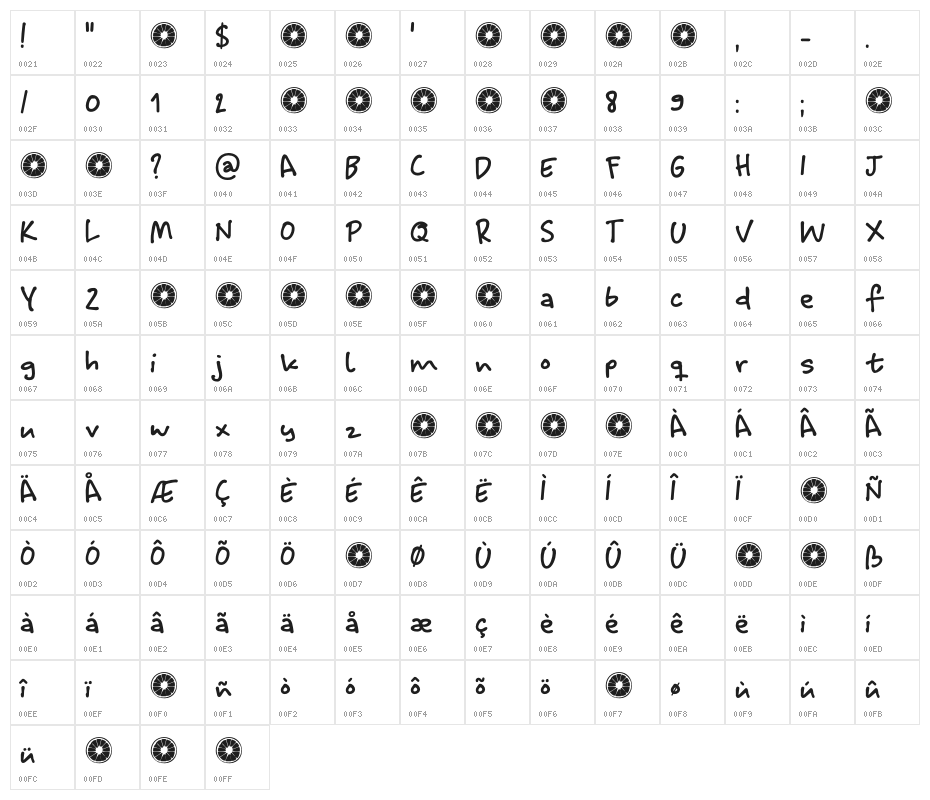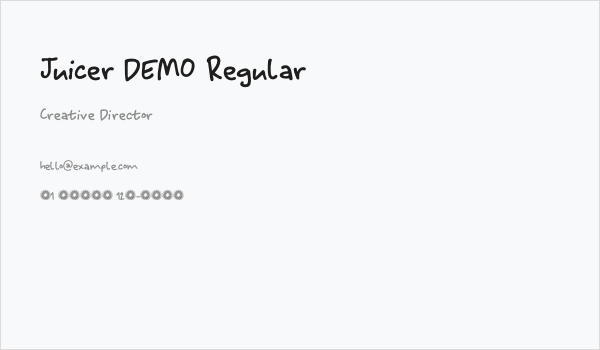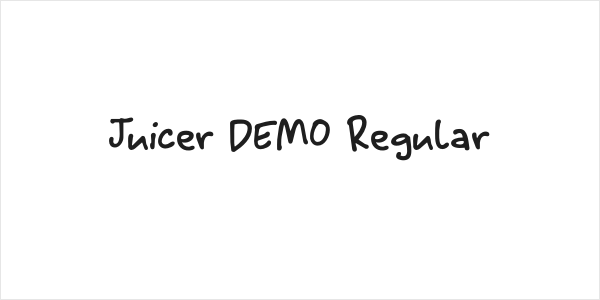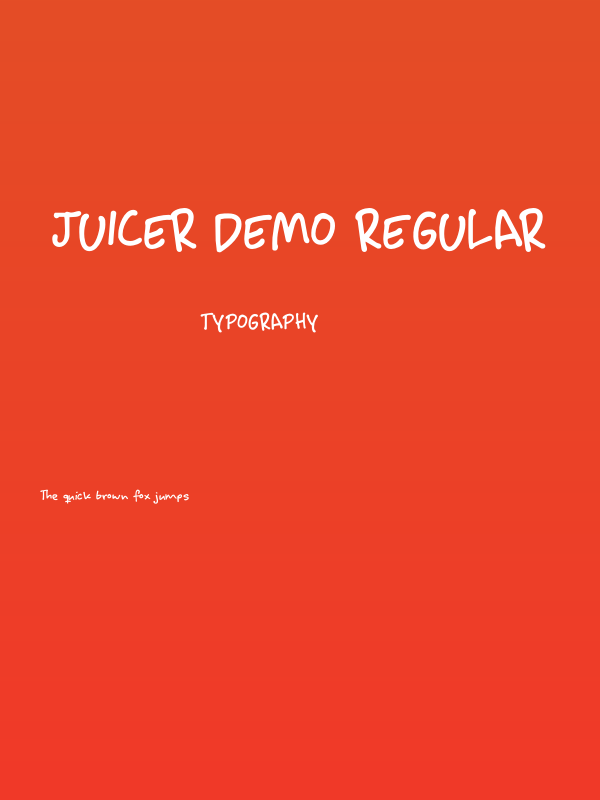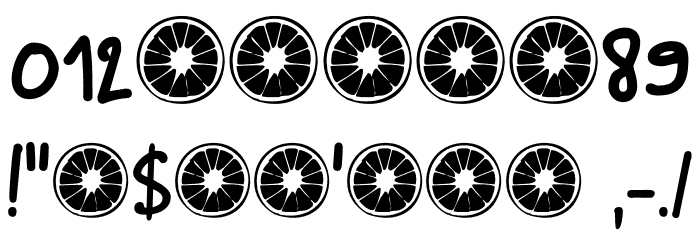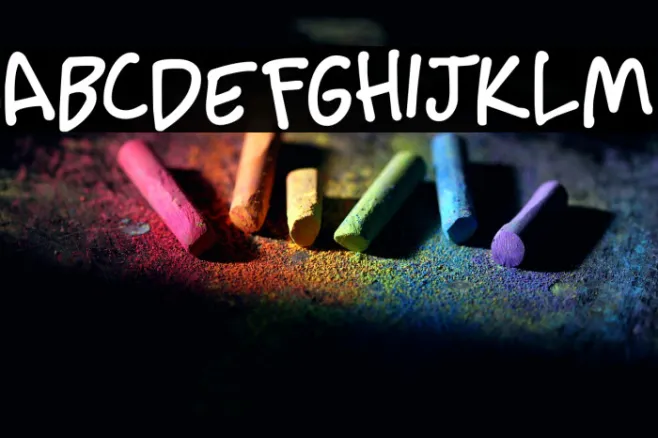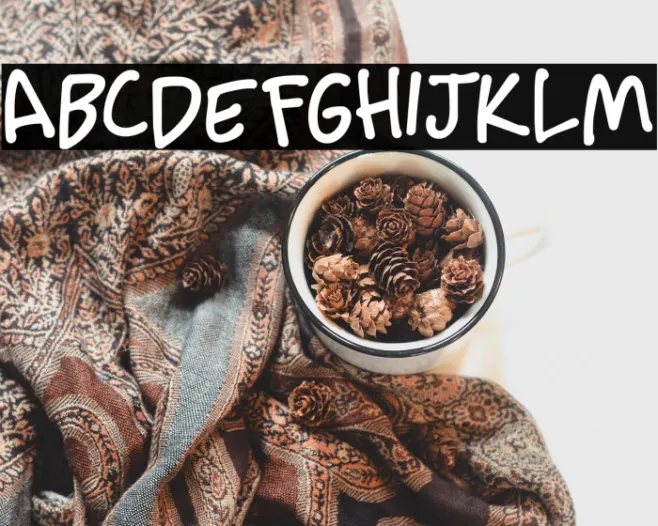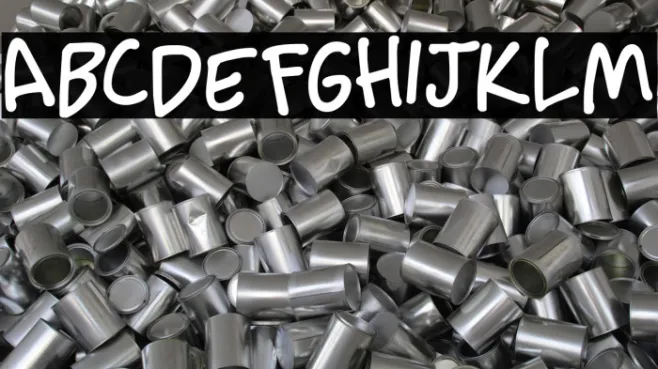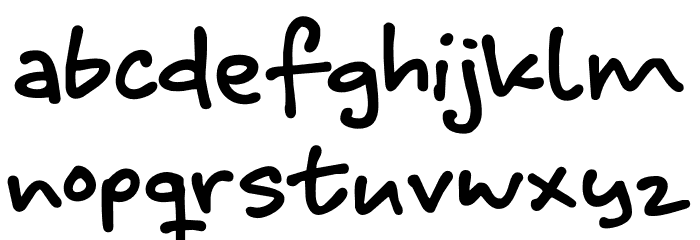
Juicer DEMO Regular Font
Juicer DEMO Regular Description
This playful and energetic font features a handwritten style with bold, rounded strokes that convey a sense of fun and creativity. The uppercase and lowercase letters maintain a consistent flow, with slightly irregular shapes that add to its charm. The numbers are uniquely designed with citrus slice motifs, enhancing the font's whimsical nature. Special characters are included, maintaining the same lively aesthetic. This font is perfect for projects that require a touch of personality and vibrancy.
| Use Case | Logos, Posters, Creative Branding |
| Proposed Projects | Ideal for children's books, playful branding, creative posters, and any project needing a fun, lively touch. |